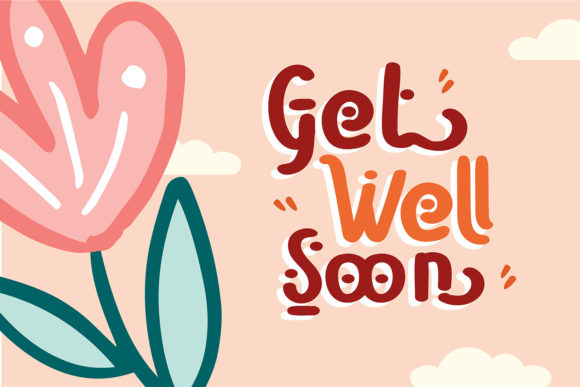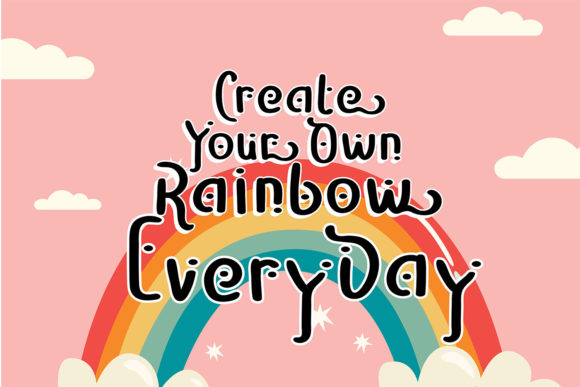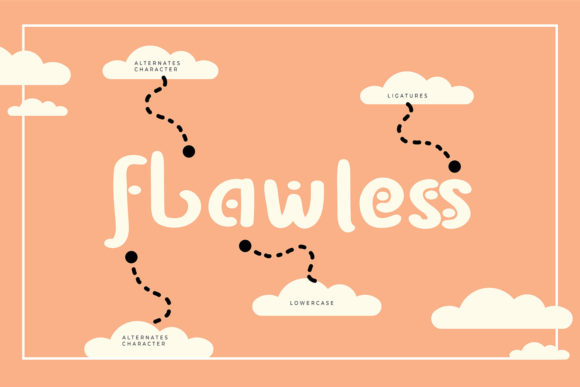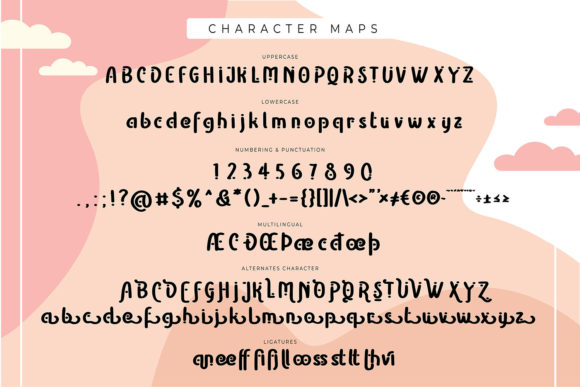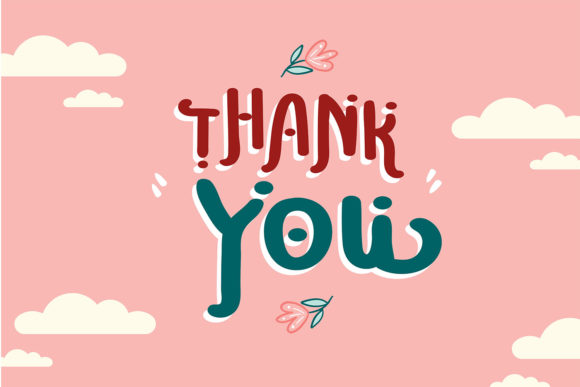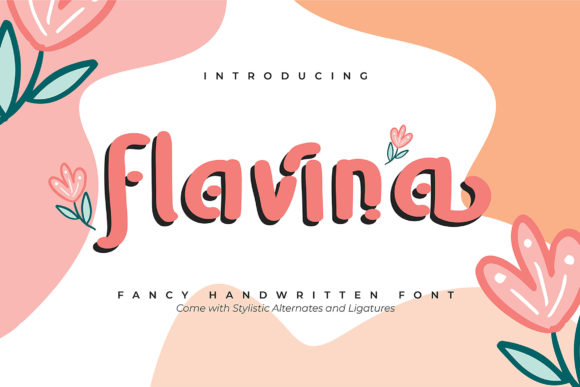
Introducing Flavina Font: The Ultimate Retro Display Font for Designers and Crafters
Are you tired of using the same old fonts for your digital designs, presentations, and greeting cards? Look no further! Flavina Font is here to add a touch of fun and retro charm to your creative projects. This versatile display font is perfect for designers, crafters, and anyone looking to add some personality to their work.
What is Flavina Font?
Flavina Font is a fun, retro display font designed to bring a smile to your face. Its unique and playful style makes it perfect for a variety of creative projects, from digital designs and presentations to greeting cards and crafting. With Flavina Font, you can add a touch of nostalgia and whimsy to your work, making it stand out from the crowd.
Key Features of Flavina Font
• Retro Style: Flavina Font boasts a distinctive retro style that’s sure to grab attention. Its classic look and feel make it perfect for projects that require a vintage touch.
• Fun and Playful: This font is designed to be fun and playful, making it ideal for creative projects that require a lighthearted touch.
• Versatile: Flavina Font is versatile and can be used for a wide range of projects, from digital designs and presentations to greeting cards and crafting.
• Easy to Read: Despite its playful style, Flavina Font is easy to read, making it perfect for use in body text as well as headings.
Uses for Flavina Font
Flavina Font is perfect for a variety of creative projects, including:
• Digital Designing: Add a touch of retro charm to your digital designs, from social media graphics to website headers.
• Presentations: Make your presentations stand out with Flavina Font’s fun and playful style.
• Greeting Cards Making: Create unique and personalized greeting cards with Flavina Font’s retro charm.
• Crafting: Use Flavina Font to add a touch of personality to your crafting projects, from scrapbooking to DIY signs.
Why Choose Flavina Font?
With so many fonts available, why choose Flavina Font? Here are just a few reasons:
• Unique Style: Flavina Font’s retro style sets it apart from other fonts, making it perfect for designers and crafters looking for something different.
• High-Quality: Flavina Font is a high-quality font designed to deliver crisp and clear results, even at small sizes.
Tips for Using Flavina Font
Here are a few tips for getting the most out of Flavina Font:
• Use it as a Display Font: Flavina Font is designed to be used as a display font, so use it to grab attention and add emphasis to your work.
• Experiment with Colors: Flavina Font looks great in a variety of colors, so don’t be afraid to experiment and find the perfect hue for your project.
• Pair it with Other Fonts: Flavina Font pairs well with other fonts, so try combining it with a sans-serif font for a unique look.